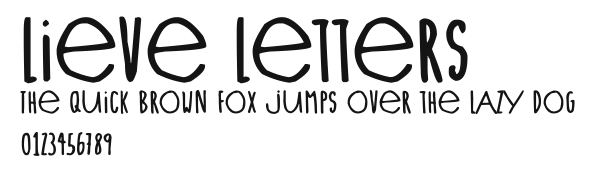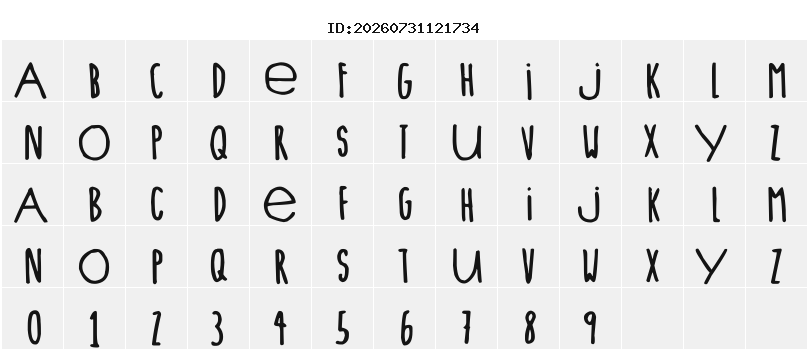
• Font Name: Lieve Letters
Lieve Letters.ttf is a modern, elegant sans-serif font designed for ultimate readability and visual harmony. Perfect for branding, headlines, web design, and print materials.